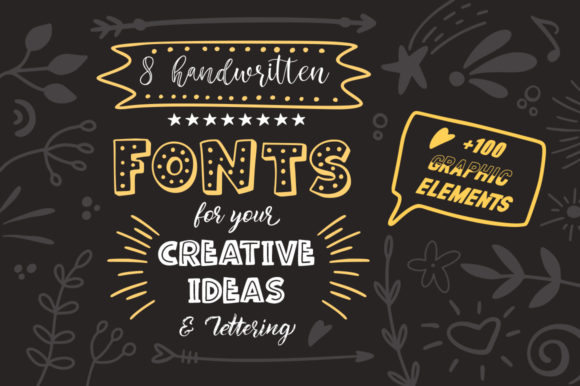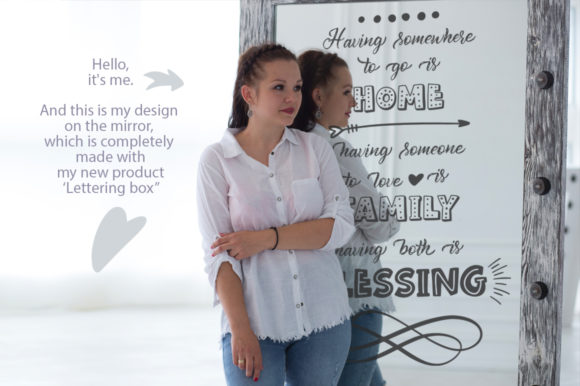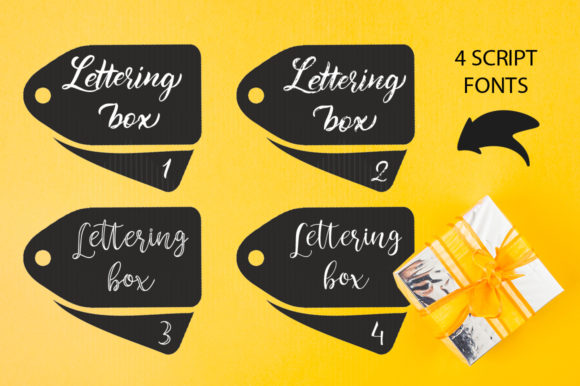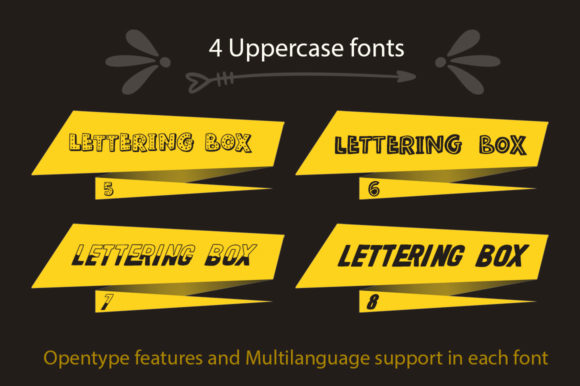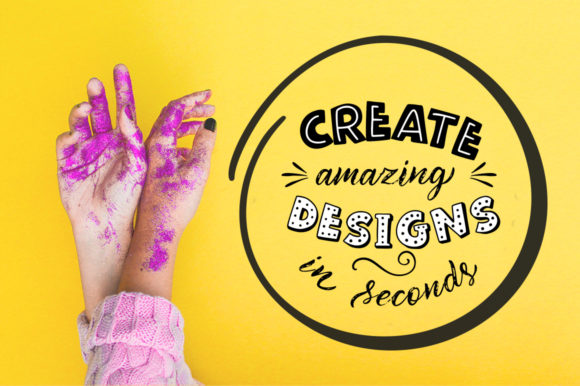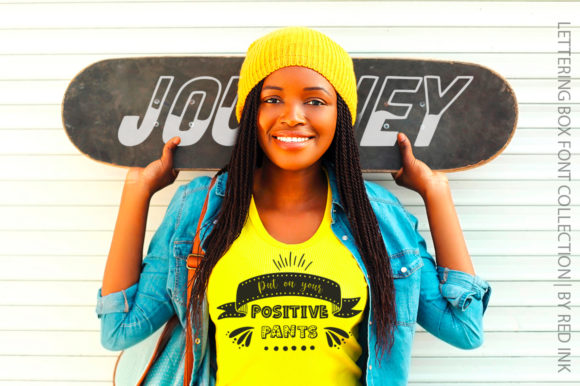
Introduction to Lettering Box Font
Lettering Box is a fun, playful and bold font family that will effortlessly put an adorable twist on any design project.
Get inspired by its unique charm and extensive set of extras .
Key Features of Lettering Box Font